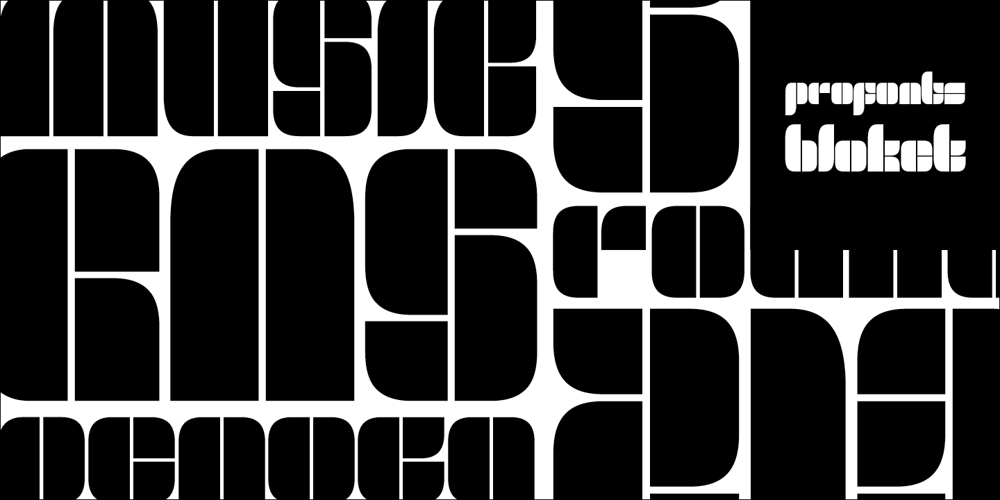
Bloket Font Family was designed by Jörn Oelsner and published by profonts. Bloket contains 1 styles and family package options. profonts Bloket is a carefully designed display typeface with a strong impact. The characters are constructed in a way that they can perfectly work alongside each other. Ideal for eye-catching headlines, strong logos and fresh layouts throughout a variety of media. profonts bloket supports the full Basic Latin, Latin 1 and Latin Extended A character set. Additionally, alternates for all uppercase, lowercase and figure characters are included.